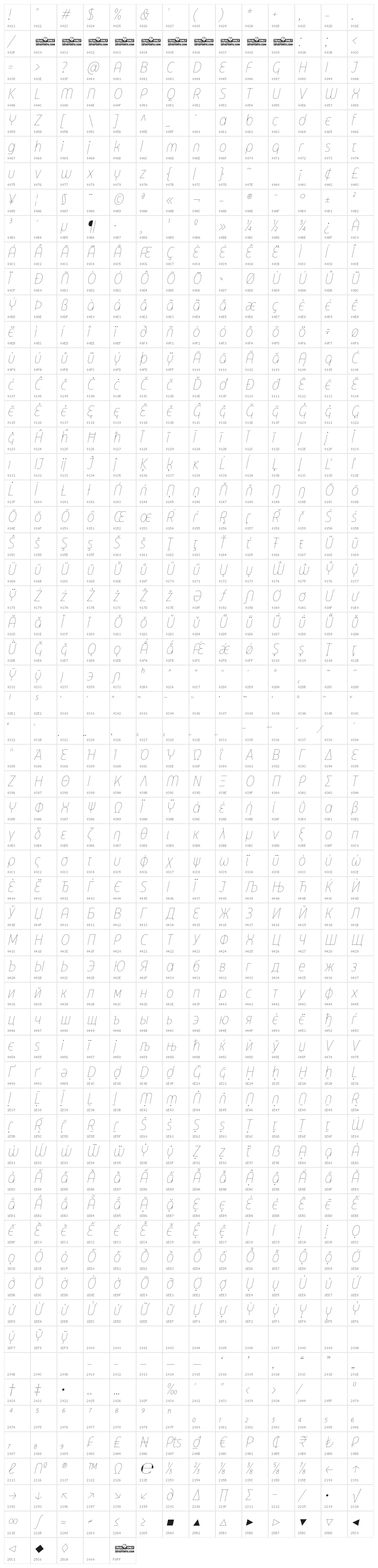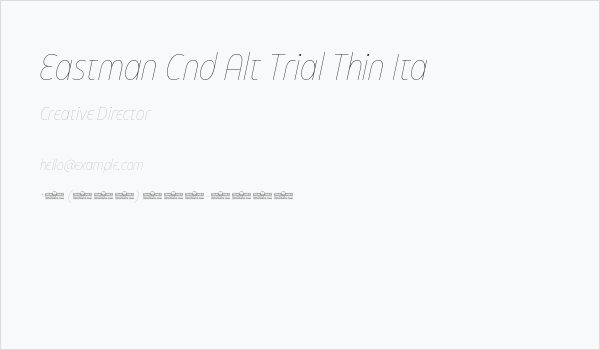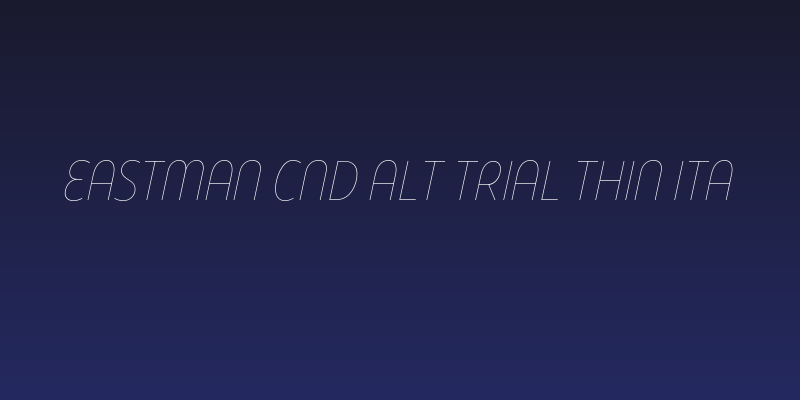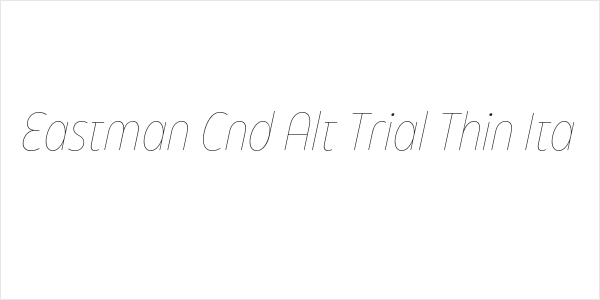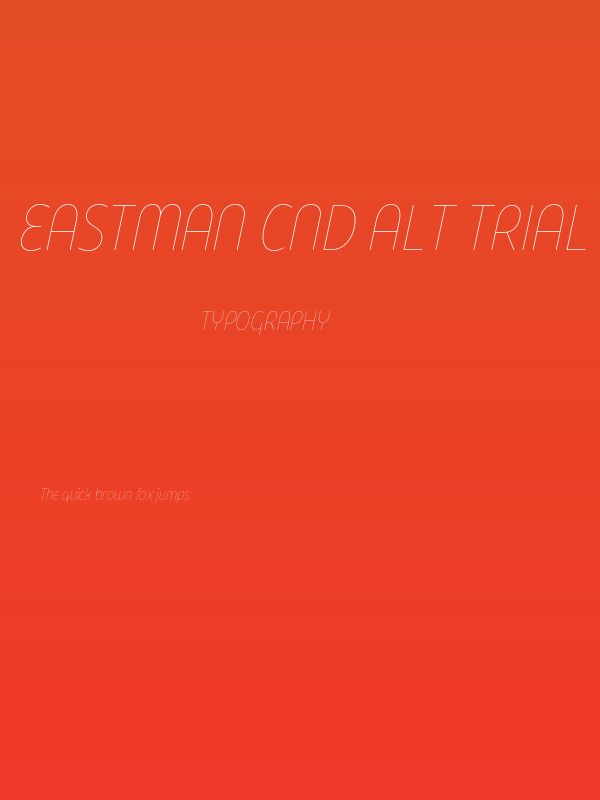
Eastman Cnd Alt Trial Thin Ita Font
Eastman Cnd Alt Trial Thin Ita Description
This font features a sleek and modern design with a condensed and italicized style. The thin strokes give it an elegant and sophisticated appearance, making it suitable for contemporary design projects. The characters are slightly slanted, adding a dynamic and fluid feel to the text. The uppercase and lowercase letters maintain a consistent style, with smooth curves and clean lines. The numerals and special characters are designed to match the overall aesthetic, ensuring a cohesive look across all text elements. This font is ideal for projects that require a modern and stylish touch.
| Use Case | Headlines, Logos, Branding |
| Proposed Projects | Ideal for fashion magazines, modern branding, sleek product packaging, and stylish website headers. |